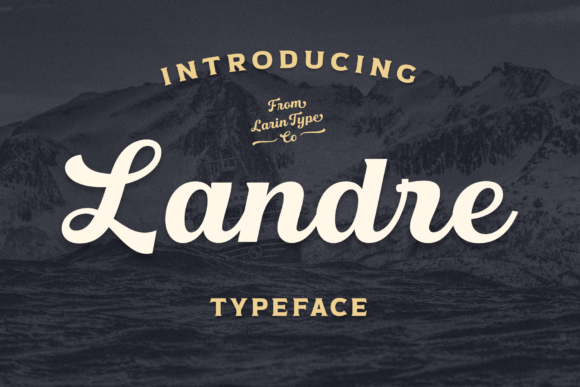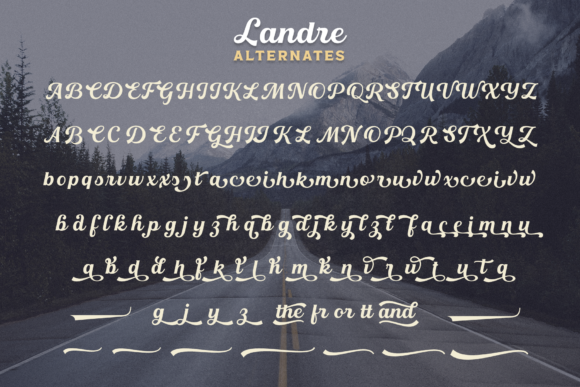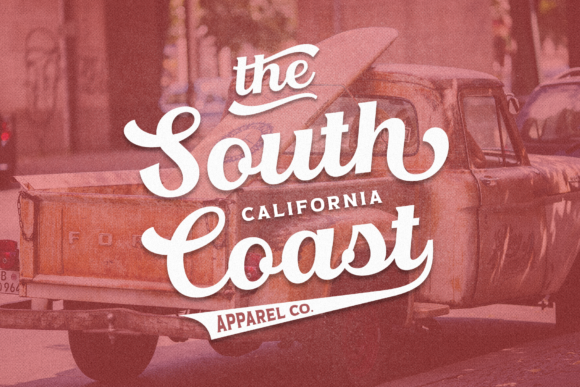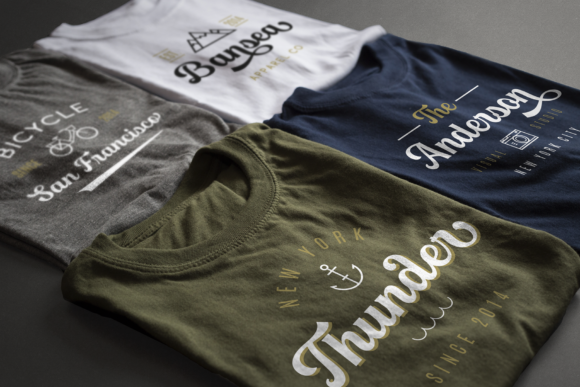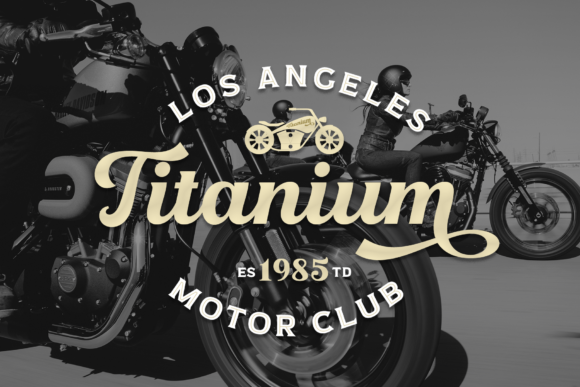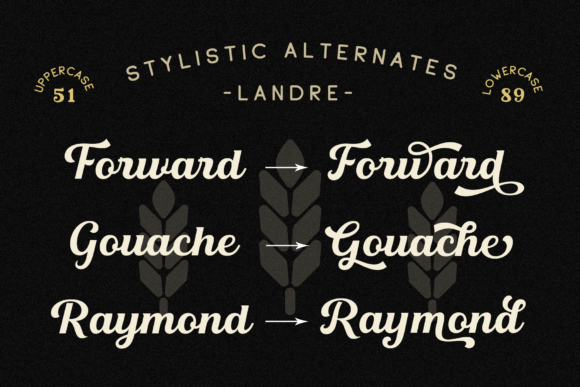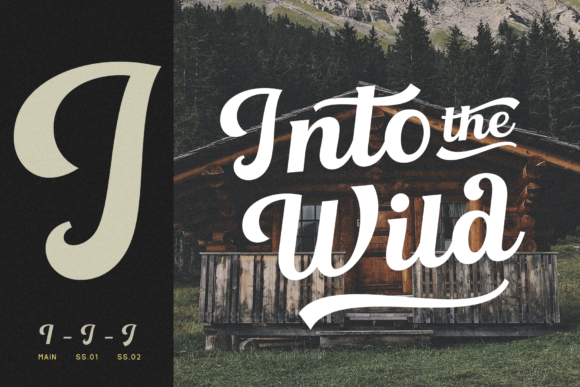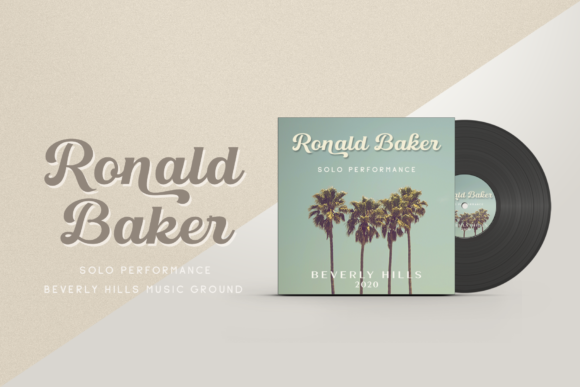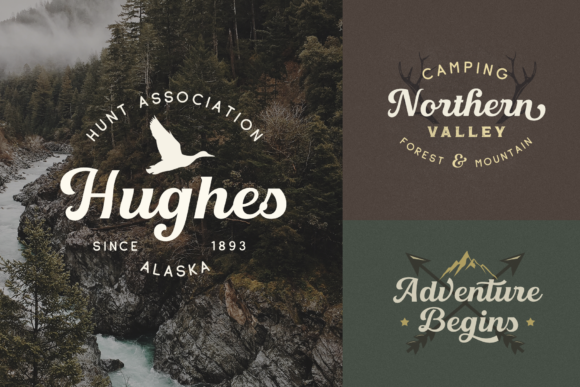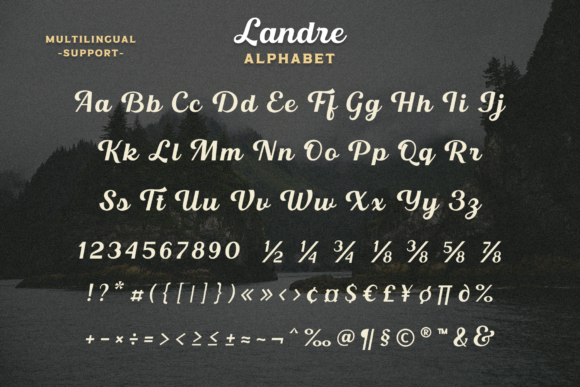
Landre Font
About Landre Font
Landre is a stylish and original handwritten font that fits perfectly for both modern and vintage designs.
Use it for web design, posters, logos, book covers and much more!